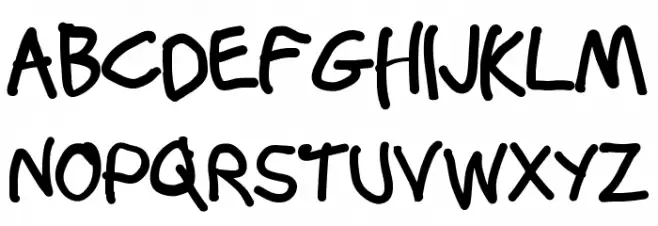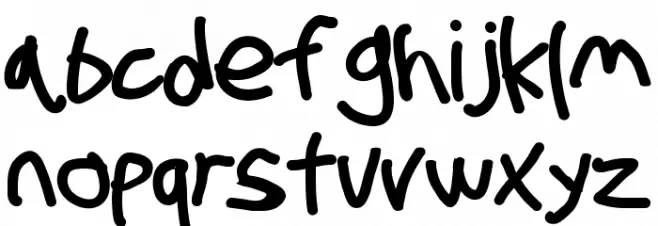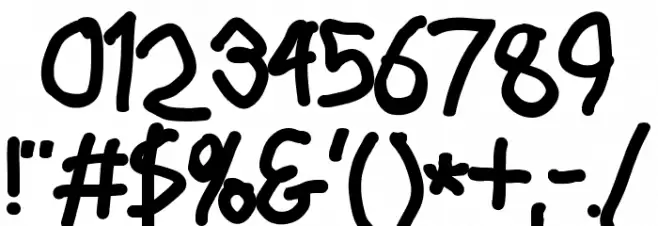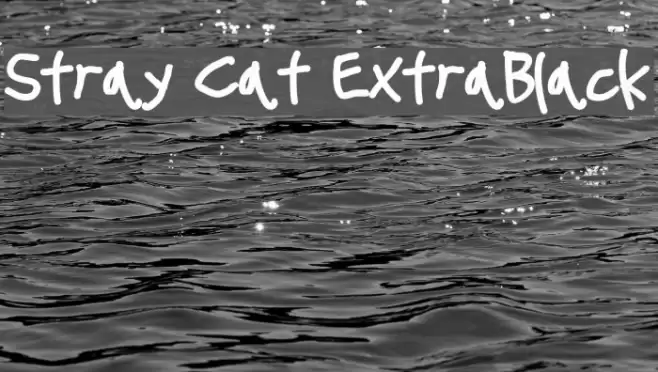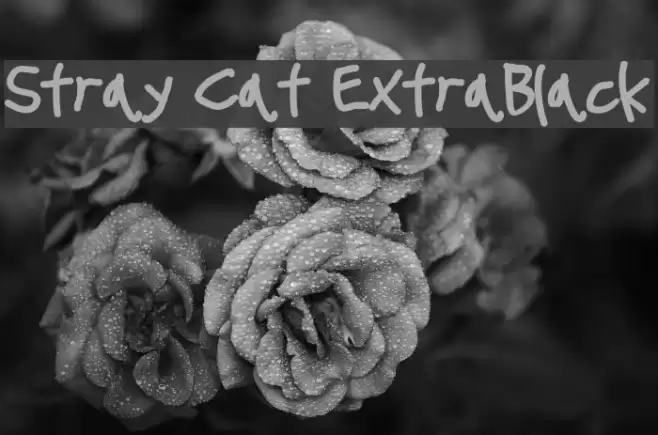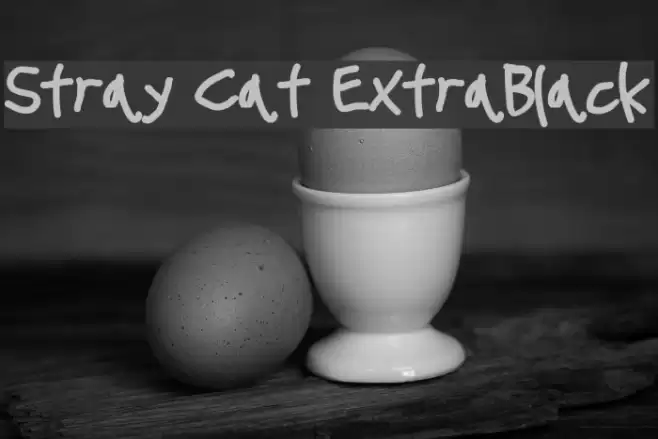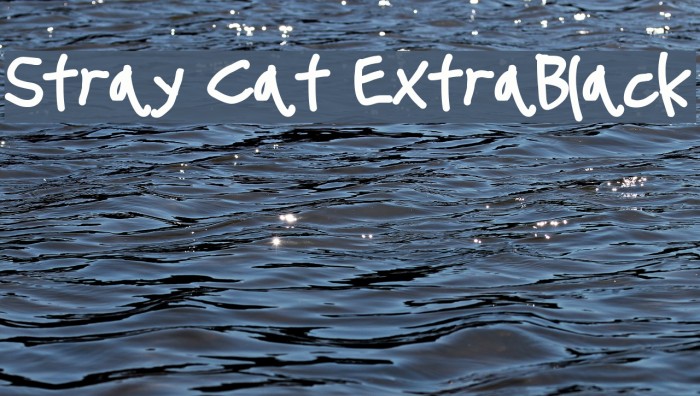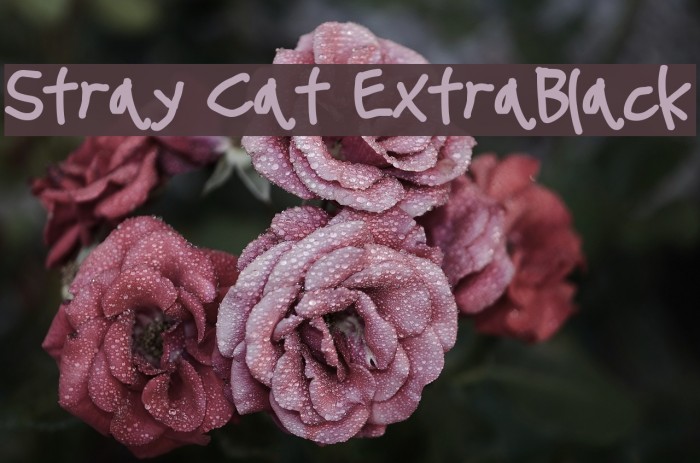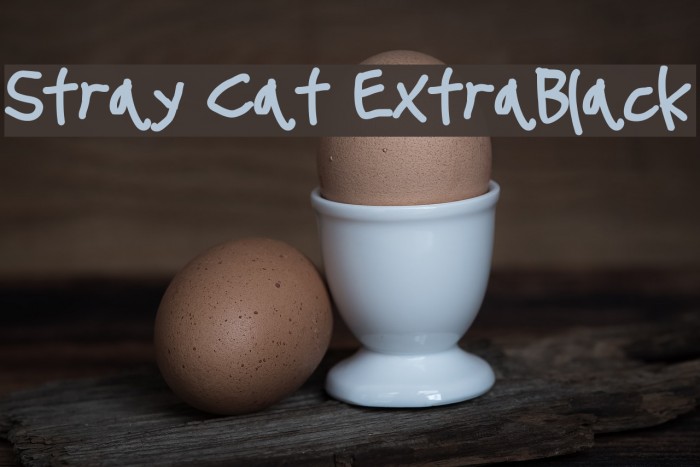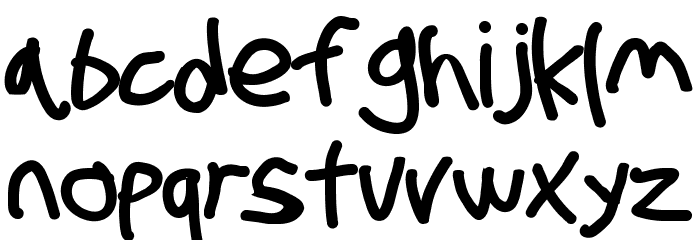
Stray Cat ExtraBlack
This font exudes a playful and casual vibe, characterized by its handwritten style. The letters are bold and rounded, with a slightly uneven baseline that adds to its informal charm. The strokes are thick and consistent, giving it a strong presence on the page. The uppercase and lowercase letters maintain a cohesive look, while the numerals and special characters blend seamlessly into the overall design. This font is perfect for projects that require a personal touch, such as greeting cards, posters, or social media graphics. Its boldness ensures readability even at smaller sizes, making it versatile for various applications.
A bold, handwritten font with a playful and casual style.
- Proposed Projects: Ideal for greeting cards, posters, social media graphics, and any project needing a personal touch.
- Overall Style: Casual